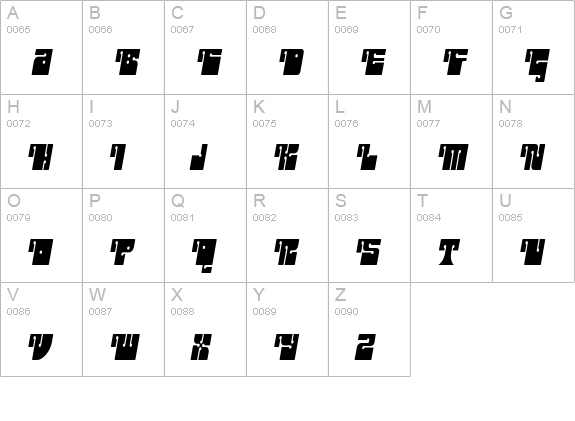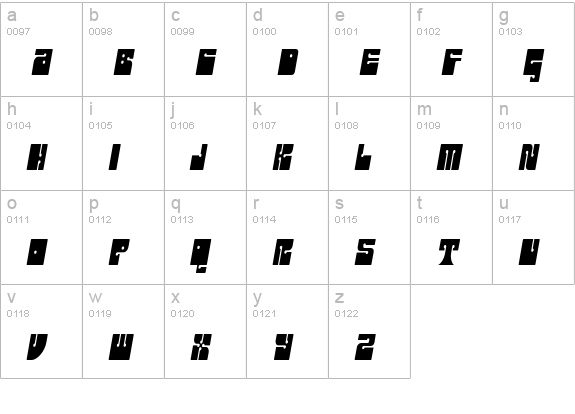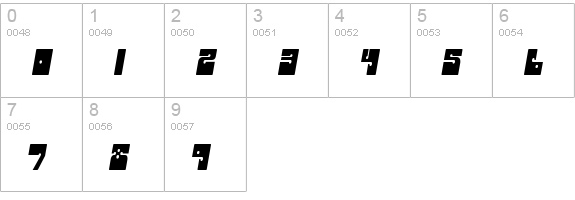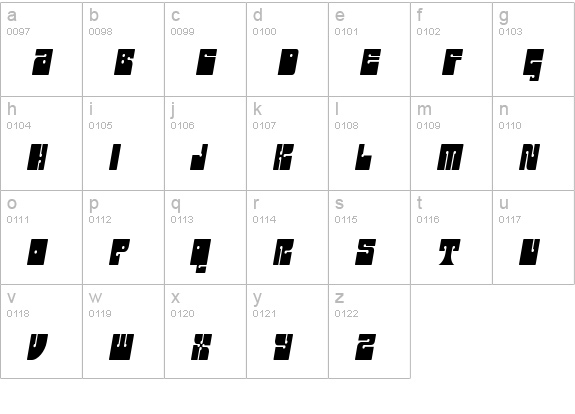
Outright font is a versatile and modern typeface that exudes elegance and sophistication. Its clean lines and unique design make it perfect for a wide range of projects, from branding to editorial design. With its sleek, contemporary look, Outright font adds a touch of class to any design. What's even better is that Outright font is available for free download at FontsMarket.com. Whether you're a designer looking for a new go-to font or just someone who appreciates beautiful typography, Outright font is sure to impress. Don't miss out on the opportunity to add this stunning font to your collection today!